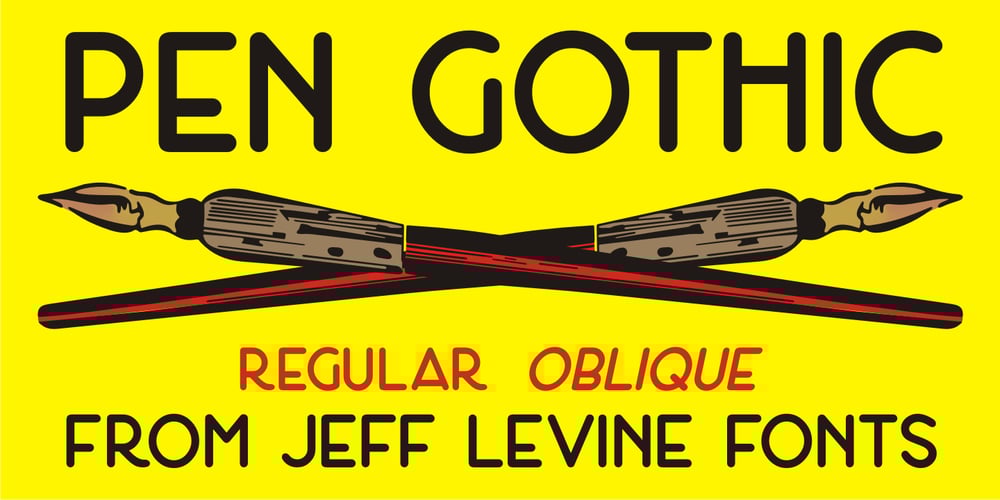
Pen Gothic JNL Font Family was designed by Jeff Levine and published by Jeff Levine. Pen Gothic JNL contains 2 styles and family package options. Pen Gothic JNL emulates lettering made with a round nib lettering pen, and is loosely based on some text found on the popular 1918 song “Ja-Da”. The font is available in regular and oblique versions.